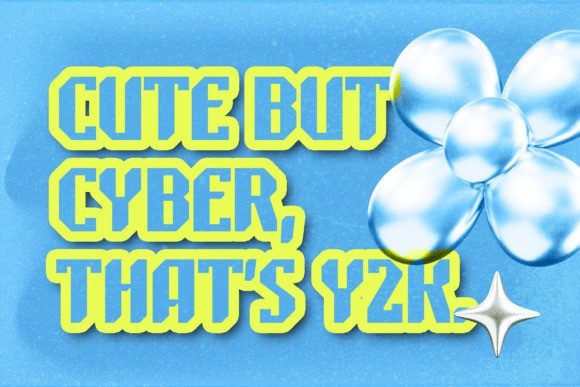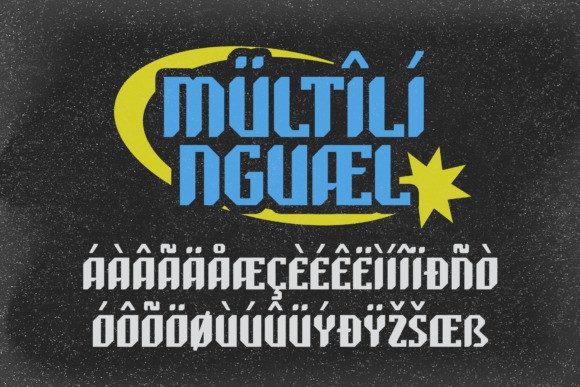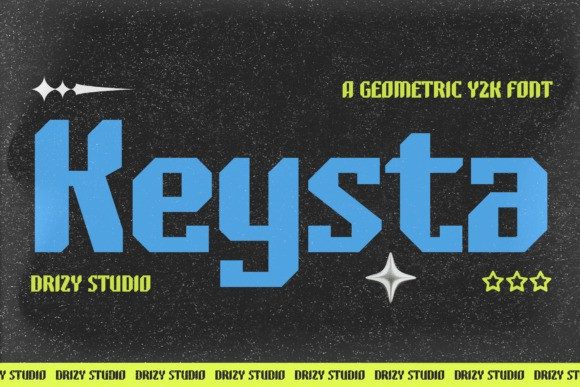
Keysta Font
Keysta Font style display font merges nostalgic tech aesthetics with futuristic energy. Its angular, modular shapes channel early 2000s digital vibes—perfect for bold titles, album art, streetwear branding, and trend-driven web designs. With a cyber feel and a punchy look, Keysta makes your designs scream retro-futurism and pop culture cool. A must-have for fans of the Y2K resurgence and geometric typography.
Its clean geometric shapes and sleek curves bring a modern-retro vibe perfect for logos, posters, apparel, and digital designs. Keysta adds a playful yet edgy touch—ideal for anyone looking to make a statement with a Y2K twist.